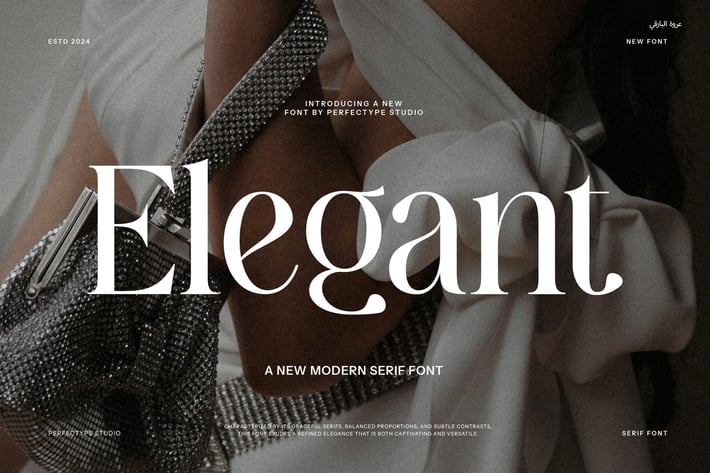
Elegant Serif Font
This Elegant Serif font combines timeless charm with modern clarity. Designed with sharp yet smooth serifs, it offers a balanced look that stands out but remains easy to read. Therefore, it works beautifully in both digital and print projects. Whether you use it for branding, editorial content, or invitations, this font adds a refined touch.
First, the font features well-proportioned letters that flow naturally. This balance helps maintain clear legibility, even at smaller sizes. Consequently, it suits headlines, subheadings, and body text alike. Moreover, the classic serif design adds sophistication without feeling outdated.
Second, its versatility allows you to apply it in various design fields. For example, it fits perfectly in luxury branding, fashion editorials, or formal event invitations. In addition, this font pairs well with simple sans-serif fonts to create elegant and readable typography layouts.
Here are the key benefits and uses of this font:
- Classic serif design with clean lines
- High readability on screens and print
- Great for logos, invitations, and headlines
- Adds a touch of elegance and professionalism
- Works in editorial, branding, and marketing
- Smooth letter shapes with sharp edges
- Complements modern and traditional styles
- Easy to pair with other font types
Furthermore, the font’s elegant style helps convey trust and quality. Because of this, it is ideal for businesses that want to project sophistication. Also, fashion brands and magazines will find this font fits perfectly with their image.
In conclusion, this Elegant Serif font offers a perfect mix of style and function. It will elevate your design projects by providing clear, stylish text that looks great in any context.